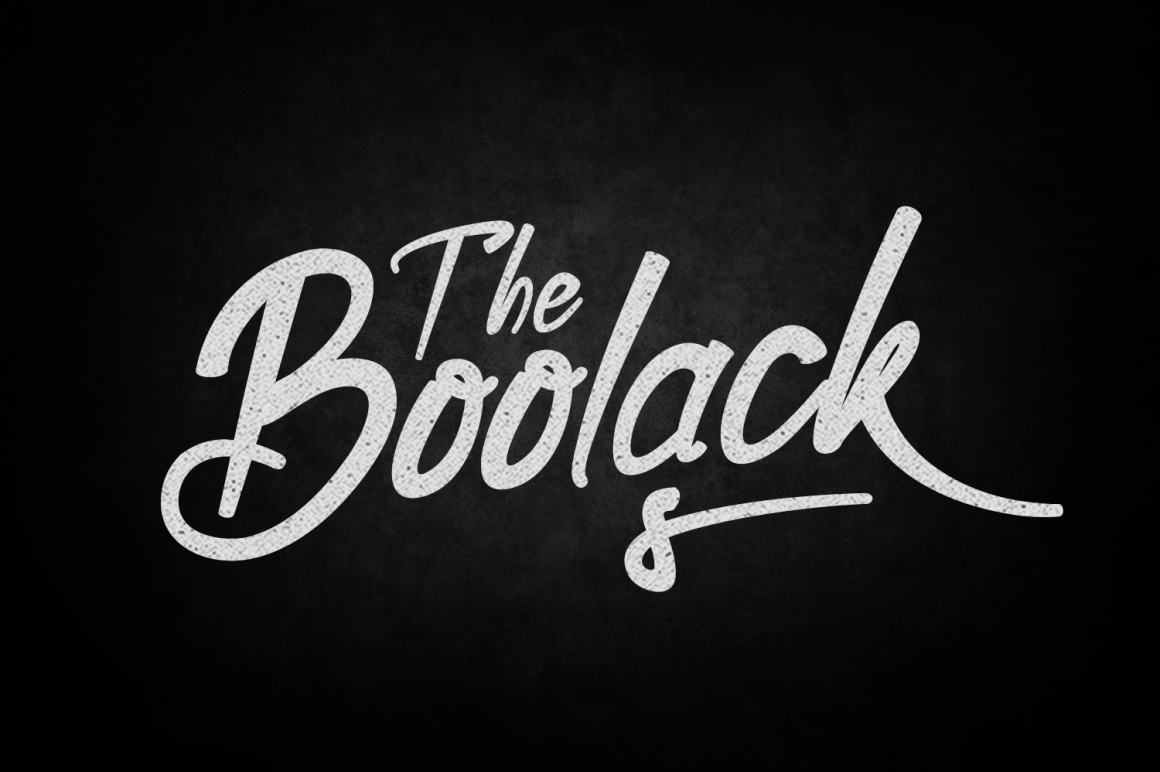
The Perfect Font for Making a Statement
Have you ever stared at a blank canvas, desperate for the perfect font to bring your design to life? You know, that moment when the words just won’t come together, and you’re left wondering if you’ll ever find the perfect fit? That’s exactly what happened to many designers before discovering the Boolack Font.
Boolack Font is a stunning, bold script font designed to make a lasting impression. Its unique alternates and dramatic flair make it the perfect choice for outspoken designs and headlines. With its versatility and impact, Boolack Font is a valuable addition to any designer’s toolkit, capable of elevating even the most mundane designs to new heights.
Boolack Font Key Features
- Font Family: Boolack, Boolack Bold, Boolack Italic, Boolack Bold Italic
- Character Set: Latin, Cyrillic, Greek
- Unique Characteristics: A vintage-inspired font with a distressed, hand-drawn feel, suitable for creative and artistic projects
Boolack Font Review
I recently had the chance to work with the Boolack font, and I have to say, it’s a mixed bag. ✨ On the one hand, I really like the unique, handwritten feel of this font. It’s perfect for adding a touch of personality to your designs, and the variety of styles and weights it comes in makes it super versatile.
The Boolack font also has a great range of languages it supports, making it a great choice for projects that require multilingual support. ✨ Additionally, the font is highly customizable, allowing you to fine-tune the look and feel to suit your specific needs.
Overall, I would say that the Boolack font is a great choice for designers who are looking for a unique, handwritten feel in their work. While it has some limitations, the pros far outweigh the cons, and with a bit of practice, it’s easy to get the hang of.
Tips for Getting the Most Out of Boolack Font
For the best results, use Boolack font for titles, headings, and other prominent text elements. Avoid using it for large blocks of text, as it can be difficult to read.
Boolack font is ideal for:
- Creative projects, such as graphic design and digital art.
- Headings and titles in publications and websites.